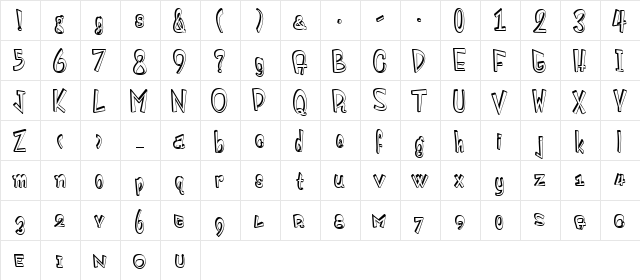
Monstroula Shadow TT Dark Shadow1.0
Design Context for Monstroula Shadow TT Typeface
Monstroula Shadow TT brings ornamental detail and strong personality to headlines and identities, where visual impact matters more than quiet functionality.
Font Pairing: Pair with a clean neutral sans-serif for body copy to let Monstroula Shadow TT's character lead without overwhelming the composition.
Pro Tip: Use Monstroula Shadow TT exclusively at display sizes — it was designed to be seen, not read at length. Let a neutral companion handle body copy.